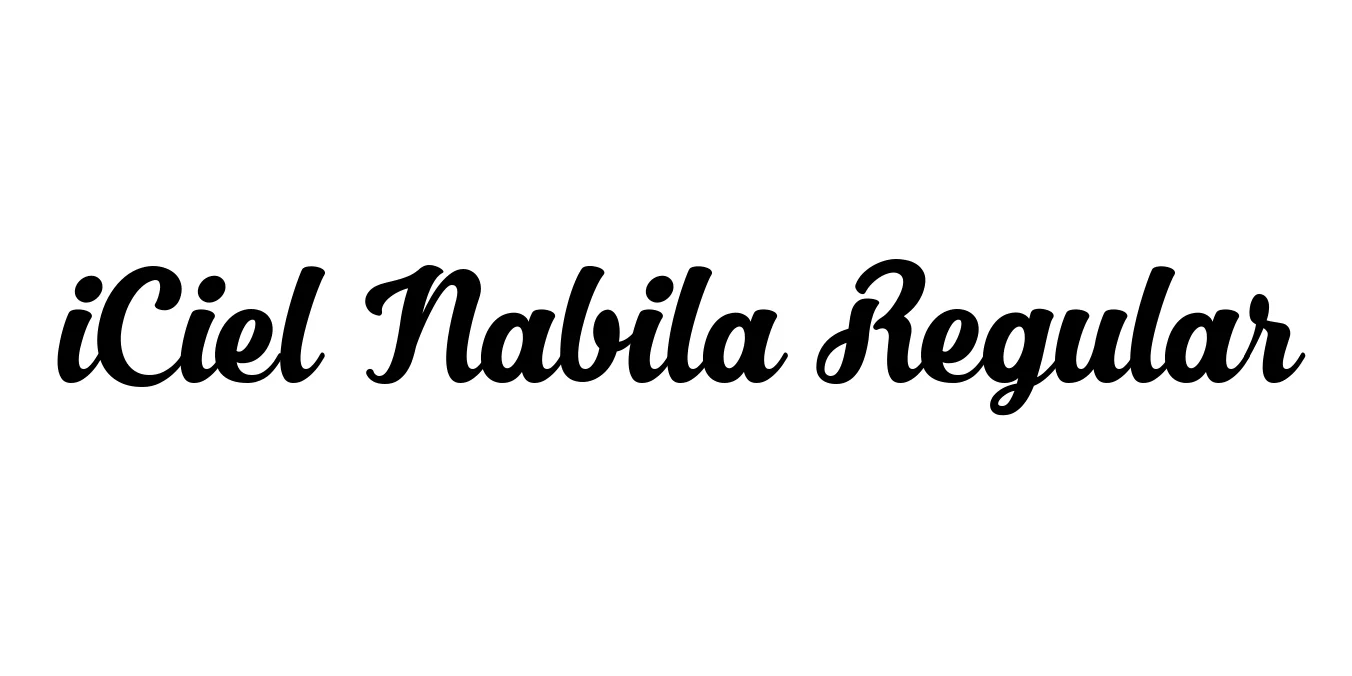
iCiel Nabila Regular
Designed by Artimasa Studio (Modified by iCiel)
| Font Name | iCiel Nabila |
| Designer | Artimasa Studio (Modified by iCiel) |
iCiel Nabila Regular is a charming and modern script font characterized by its thick, rounded strokes and a distinct hand-drawn aesthetic. Originally designed by Artimasa Studio and localized for Vietnamese audiences by iCiel, this typeface captures a sense of warmth and creativity, making it a popular choice for contemporary branding and illustrative typography.
The font features smooth curves and a high level of legibility for a script face. It is often utilized in web design, product packaging, and social media graphics due to its bouncy baseline and friendly, approachable personality. Its versatile nature allows it to work well in both digital and print mediums, providing a handcrafted feel to any layout.
iCiel Nabila Regular Best Uses
Perfect for logos that need a friendly and approachable personality.
Great for eye-catching Instagram quotes and promotional banners.
Ideal for food, cosmetics, or handmade product labels.
Adds a whimsical and personal touch to greeting cards and party invites.